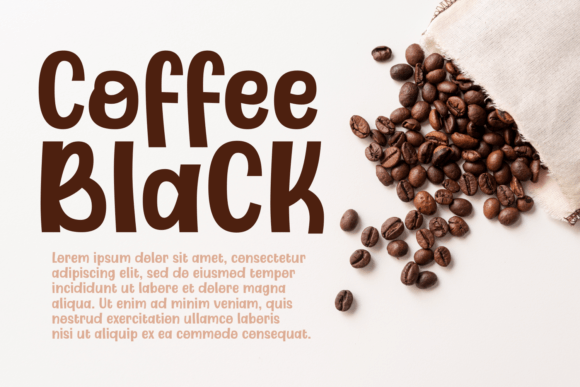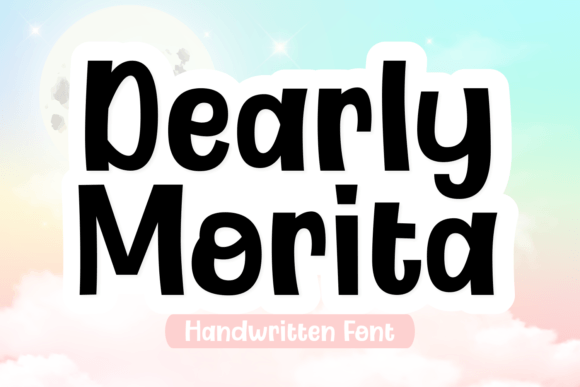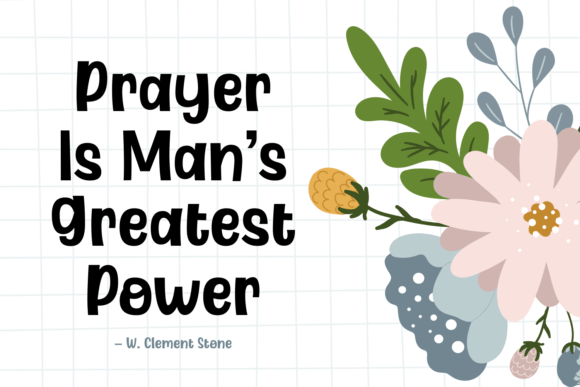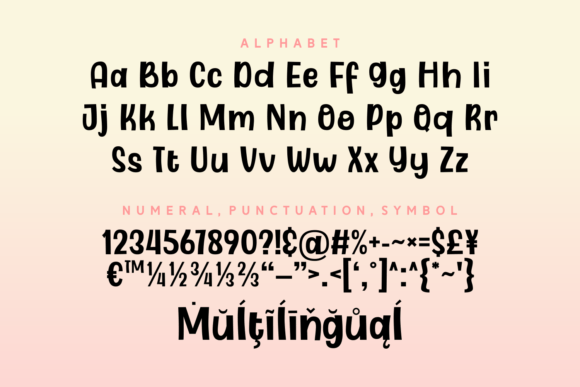
About Dearly Morita Font
Dearly Morita is a playful, happy, and amusing display typeface. This typeface will be a fantastic choice for any creation that needs a delightful touch, whether you use it for designs that are related to cartoons, kid’s games, or just about anything else!